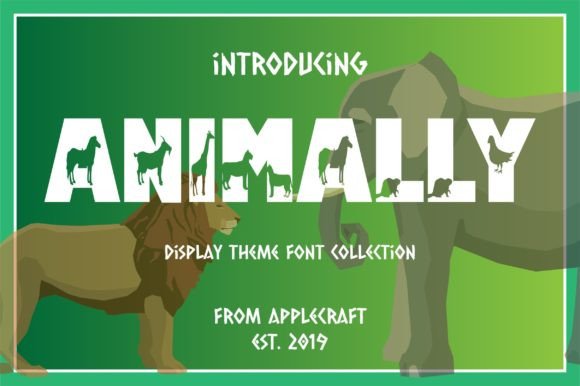
The Wild Side of Typography: Discovering the Animally Font
I’ll never forget the time I was working on a woodland-themed party invitation for a friend’s kid’s birthday. I had the perfect design concept, but I was struggling to find a font that captured the whimsical, playful vibe I was going for. That’s when I stumbled upon the Animally font, and it was love at first sight! 🐰
This charming font features fun creature silhouettes infused in the letters, making it perfect for any woodland-themed parties or decor. In this article, I’ll share my honest review of the Animally font, provide a practical guide on how to use it, and explore similar fonts and alternatives.
- ✨ Unique and playful design that adds a touch of whimsy to any project
- ✅ Easy to read and understand, even with the added creature silhouettes
- 🎉 Perfect for woodland-themed parties, decor, and designs
- 👍 Highly versatile and can be used for various creative projects
While I adore the Animally font, there are a few things to keep in mind:
- ⚠️ Some letters may be a bit tricky to read, especially for younger audiences
- 🤔 Limited use on formal or professional projects, as it’s quite playful
- Experiment with the OpenType features, such as stylistic alternates and glyphs, to add more personality to your text
The Story Behind Animally: Designer Inspiration
The Animally font was designed with the intention of bringing a touch of whimsy and playfulness to creative projects. The designer, inspired by the wonders of the natural world, aimed to create a font that would evoke a sense of wonder and curiosity.
A: The Animally font is perfect for woodland-themed parties, decor, and designs, as well as children’s projects, invitations, and more.